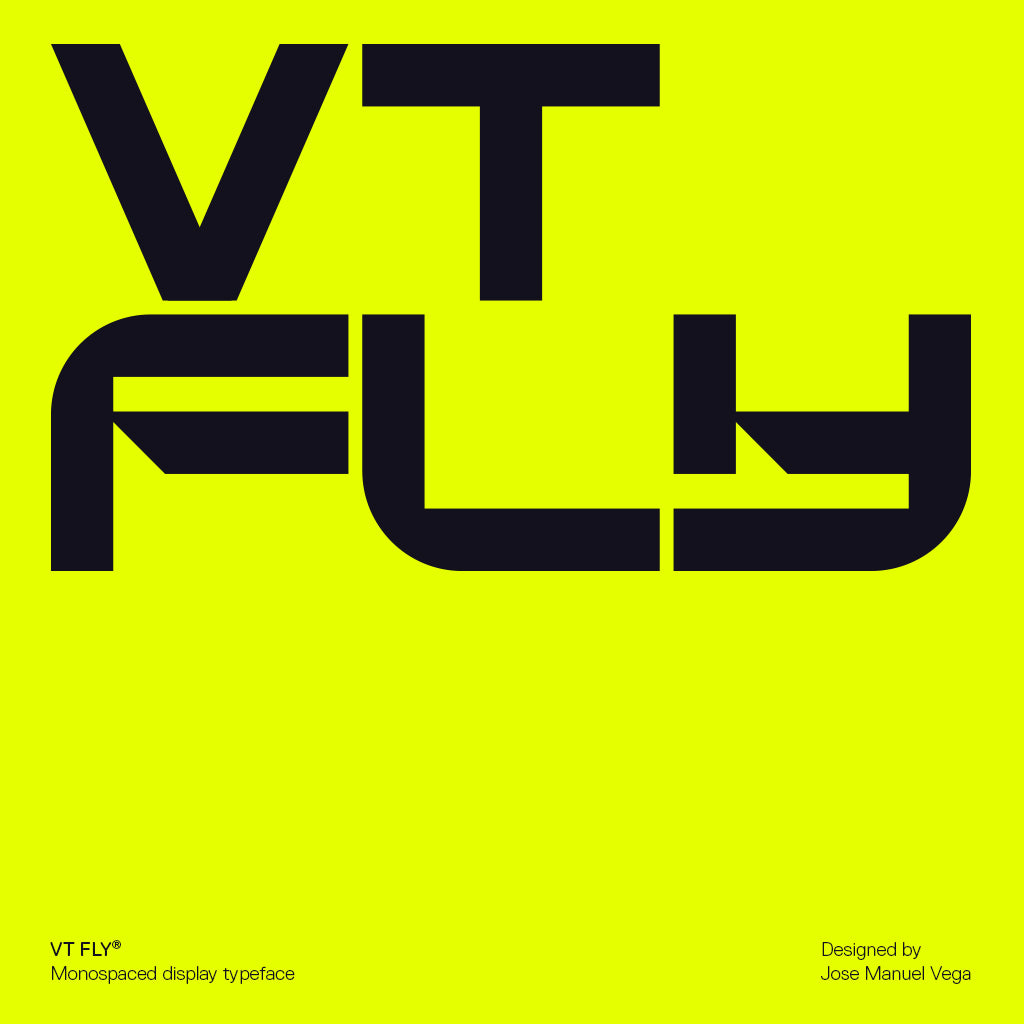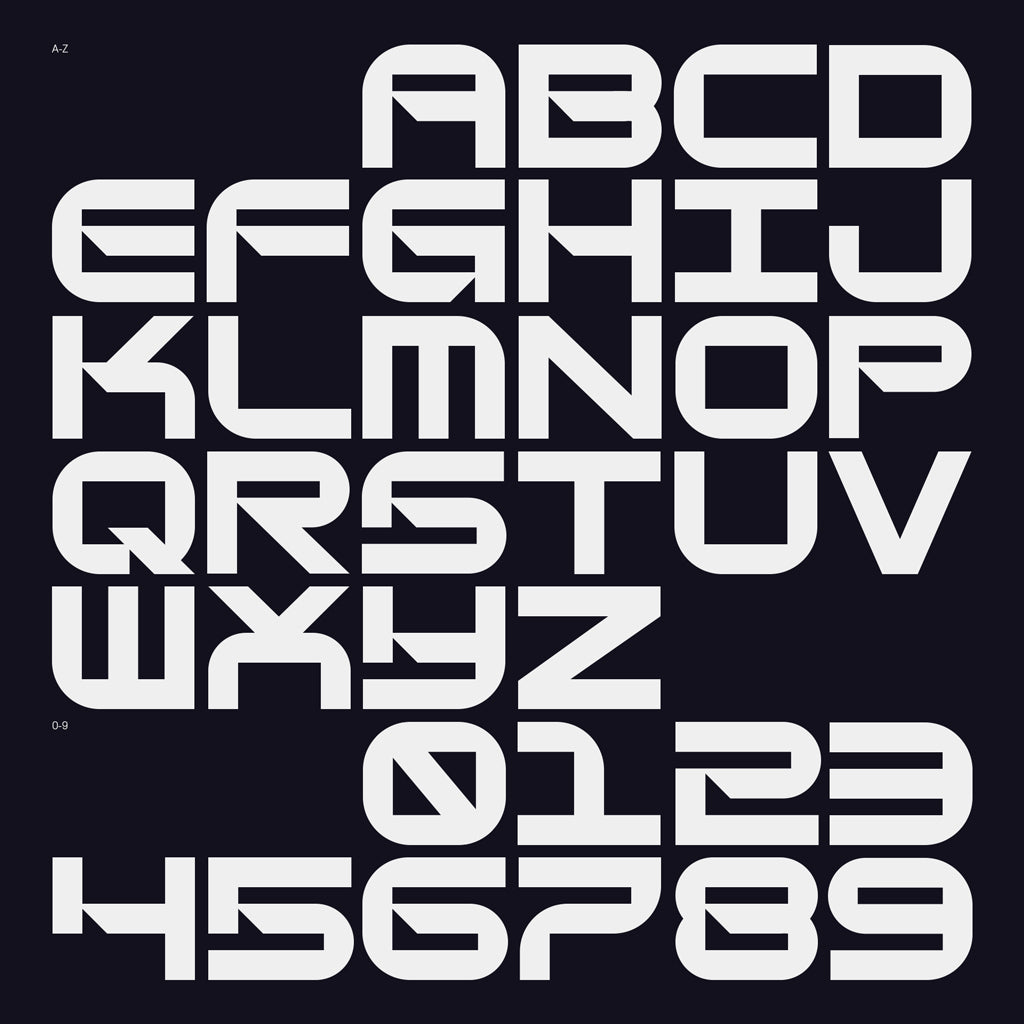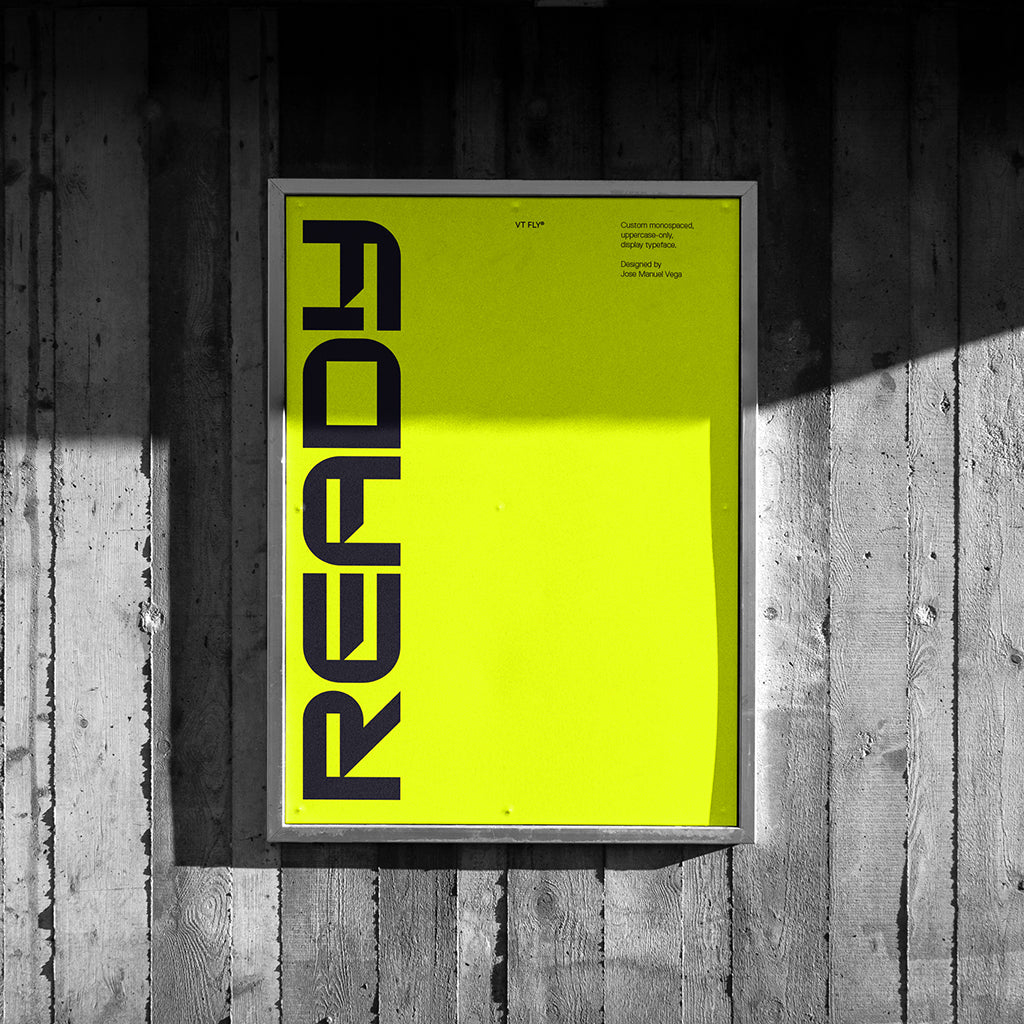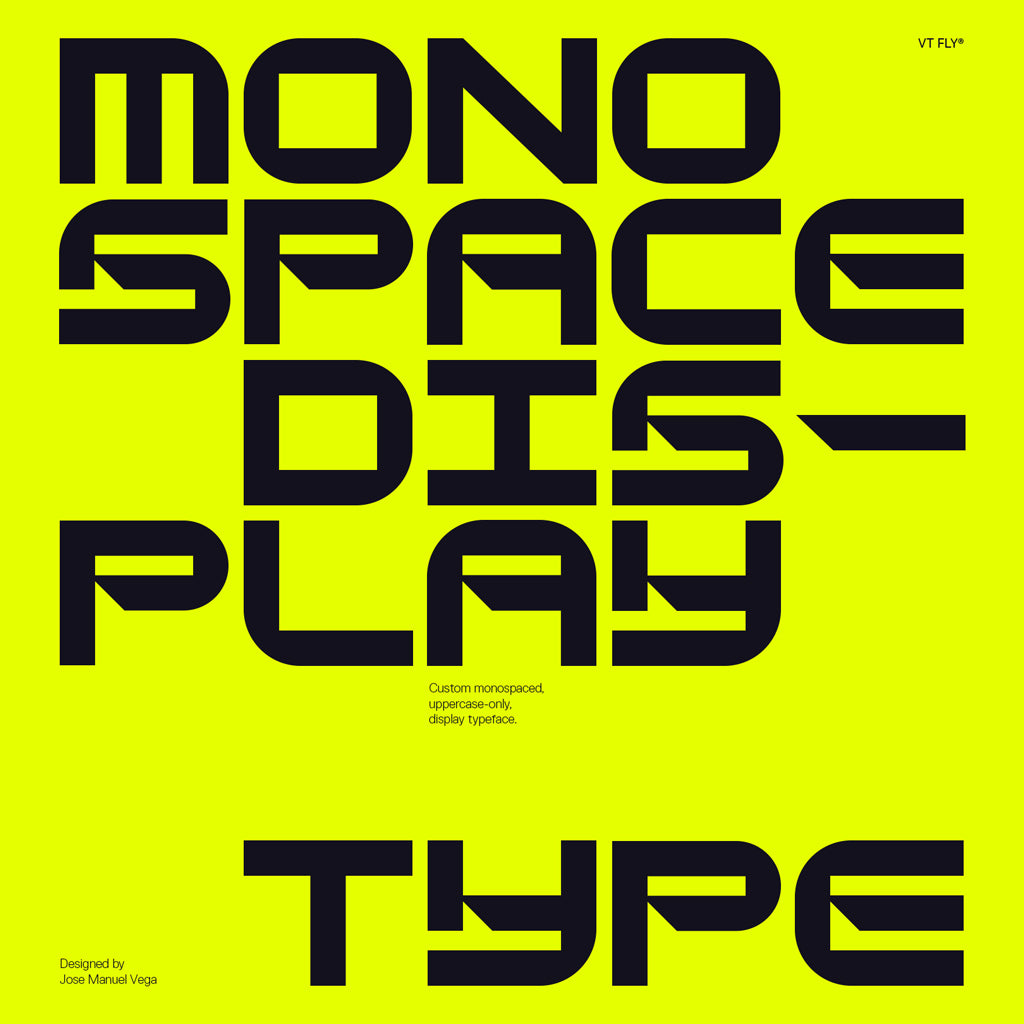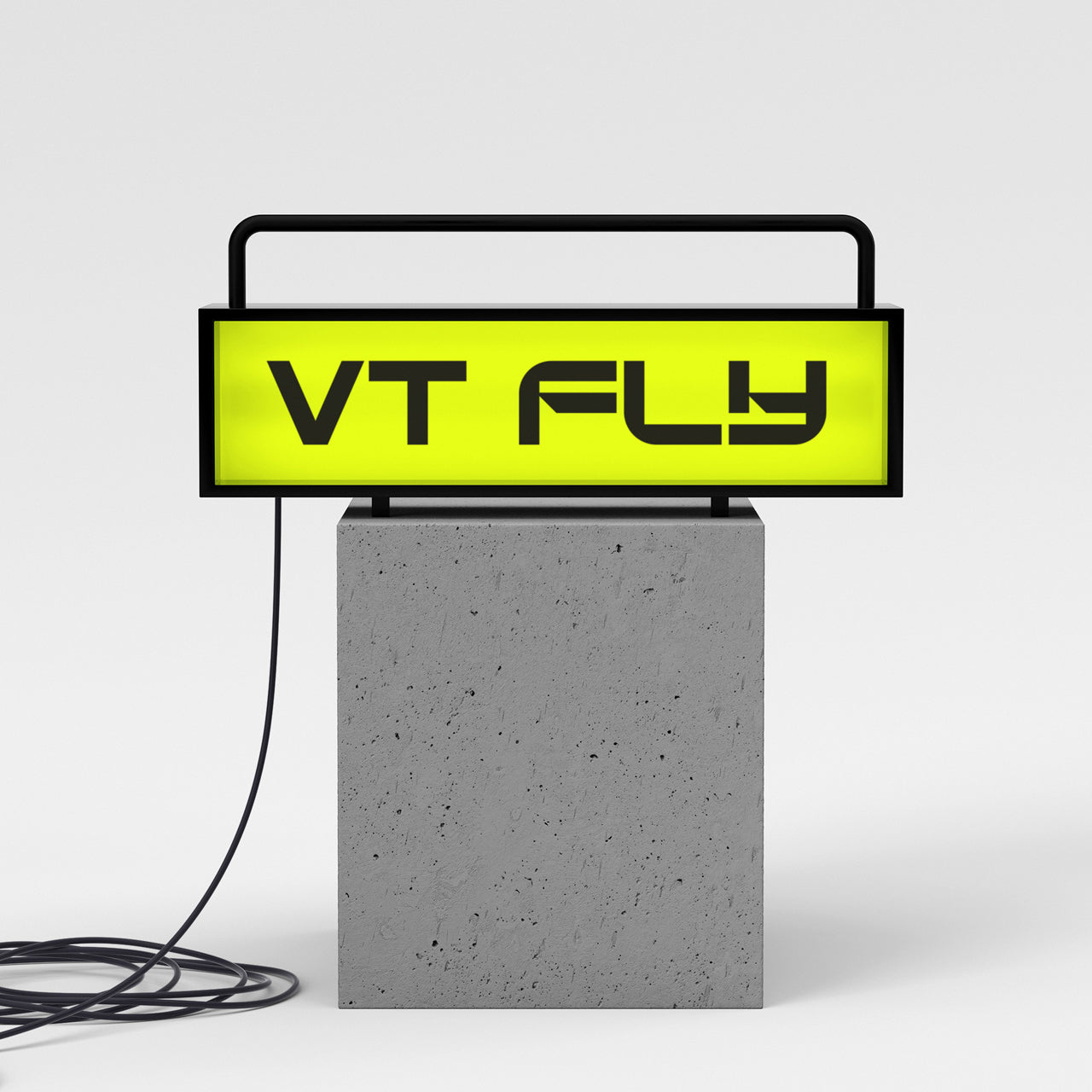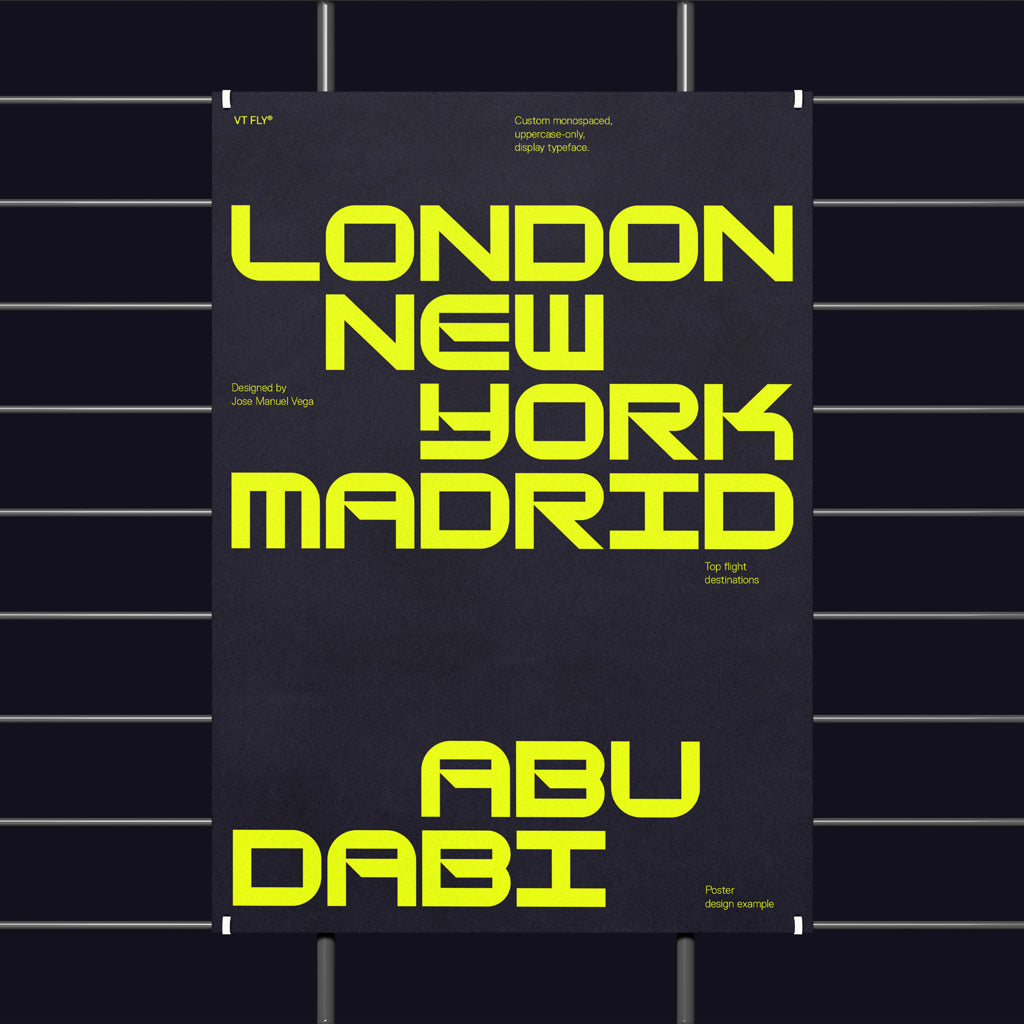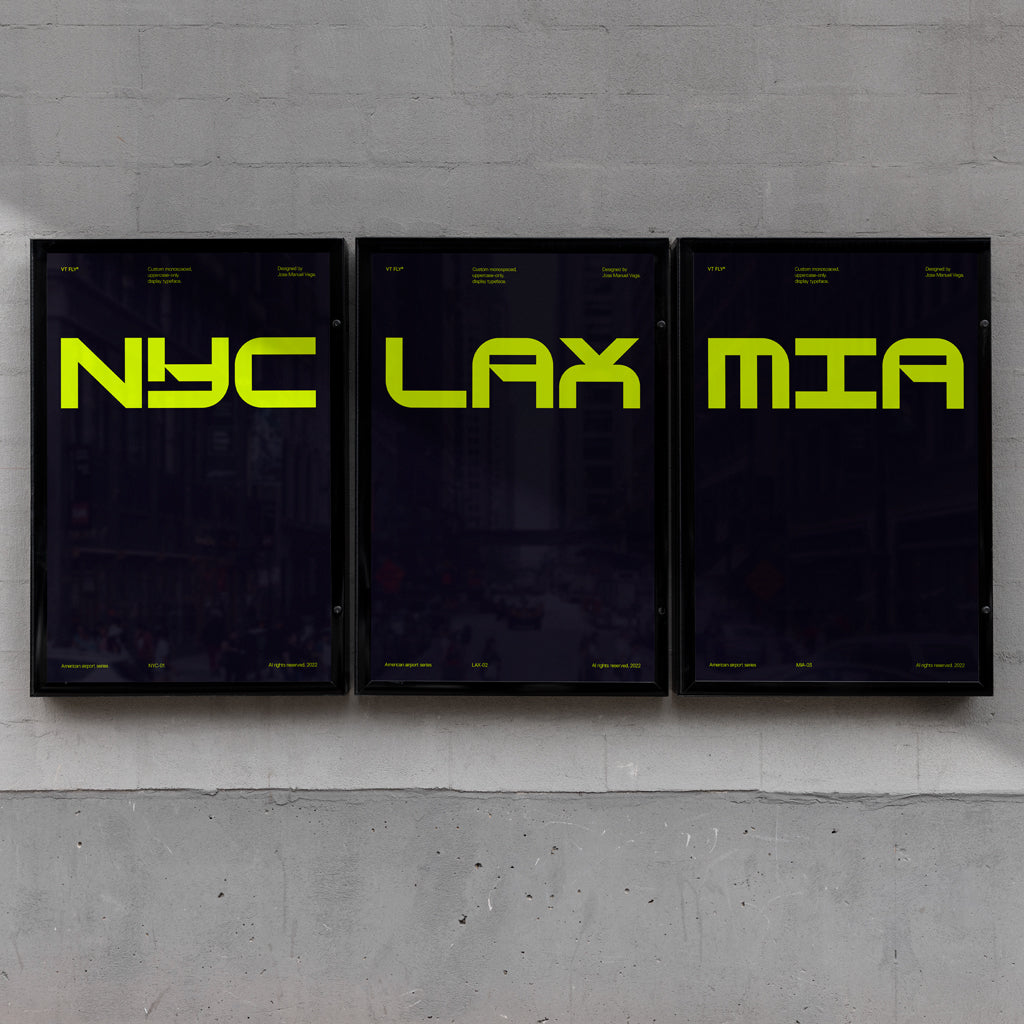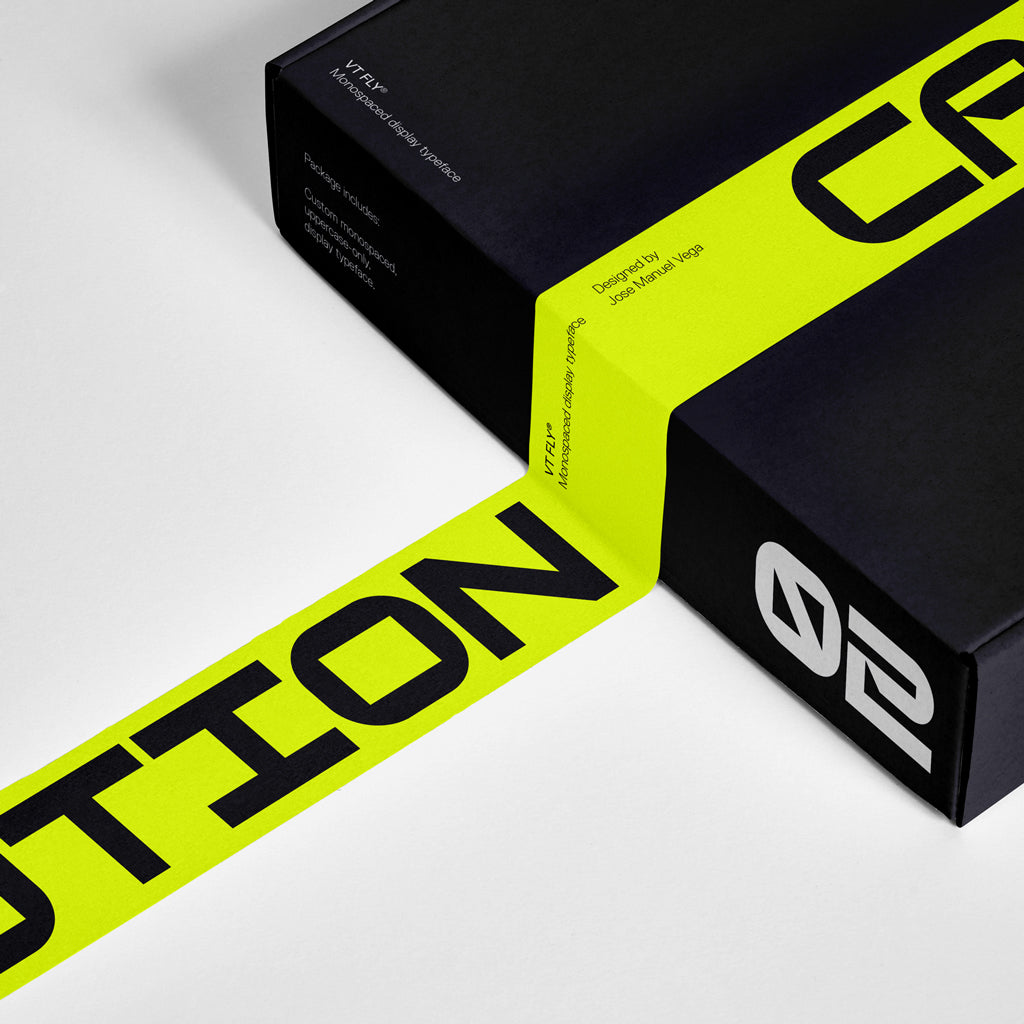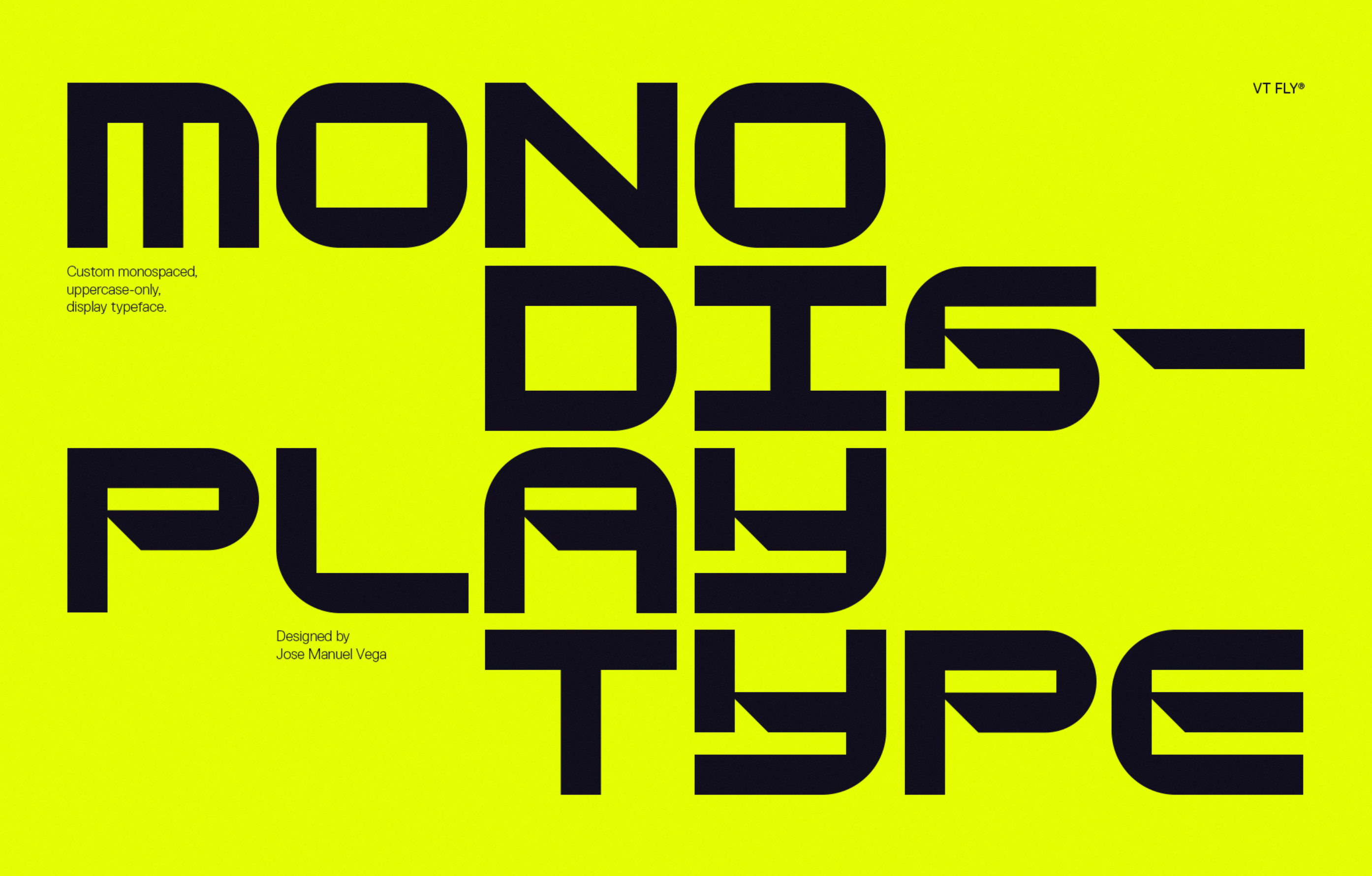
VT Fly
Jose Manuel Vega
Designed by Spanish designer Jose Manuel Vega, VT Fly is a monospaced typeface featuring uppercase letters exclusively. Crafted with angular cuts, curved corners, and solid strokes, VT Fly embodies the dynamic energy and bold aesthetics reminiscent of commercial aviation and iconic aeroplane models.
This display typeface is ideal for creating eye-catching headlines and memorable logotypes that exude a sense of speed and modernity.